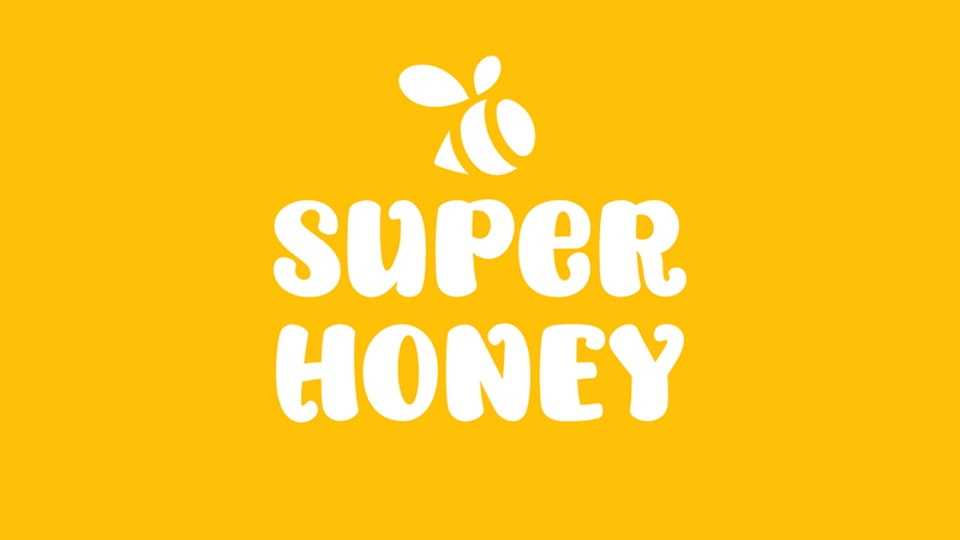
Download Super Honey font, a playful and cute hand-crafted typeface with smooth letterforms that exude warmth and charm. Super Honey font features rounded, flowing characters with delightful details, capturing the essence of hand-drawn cuteness.